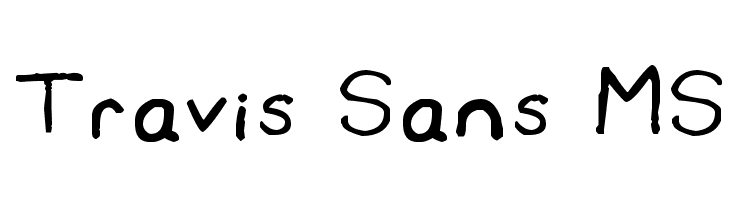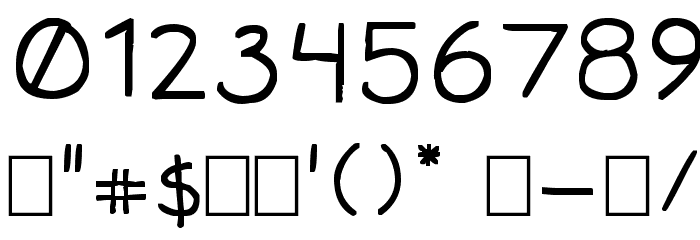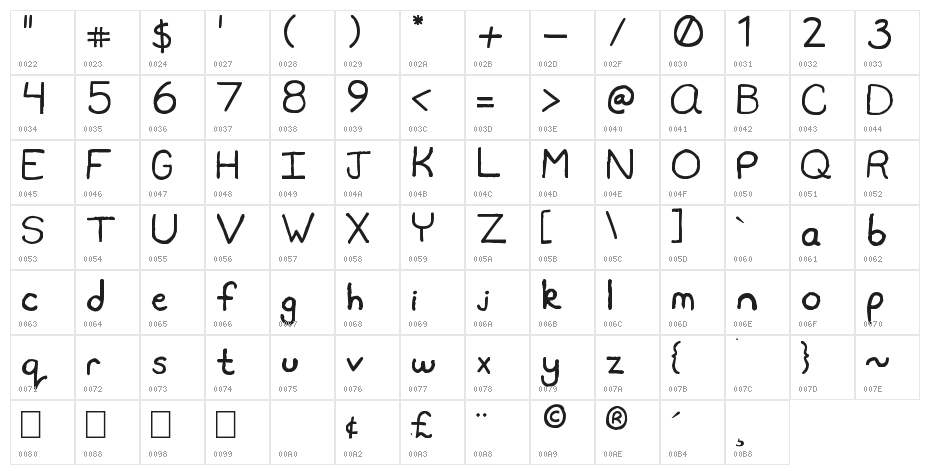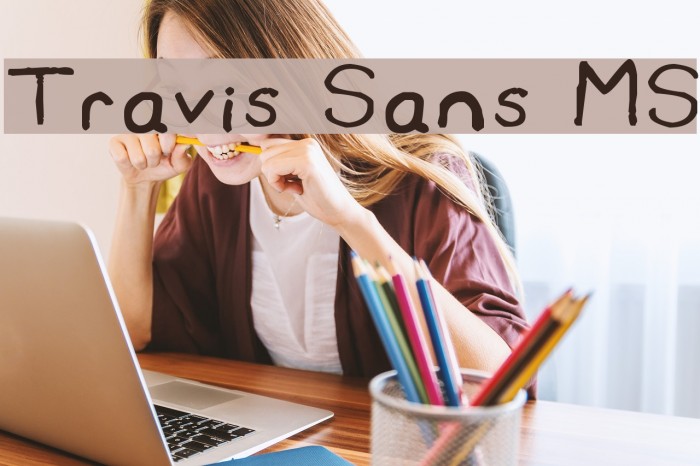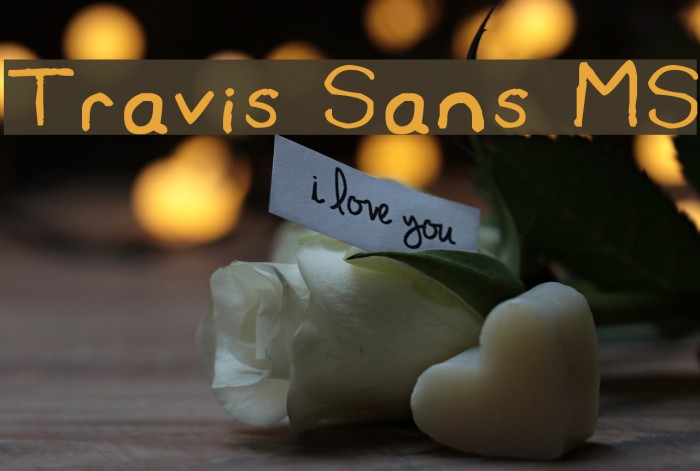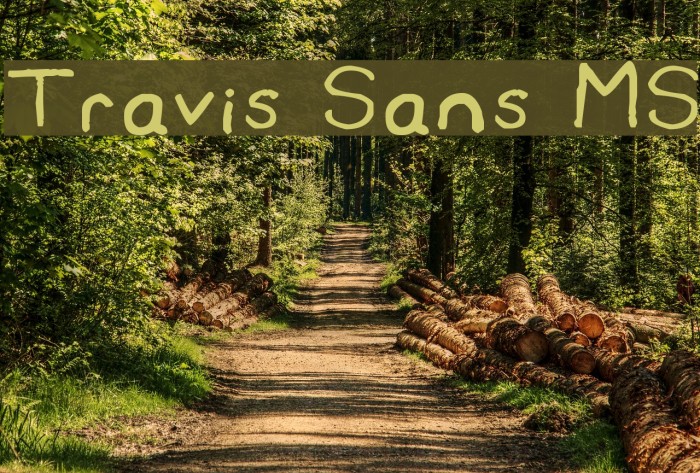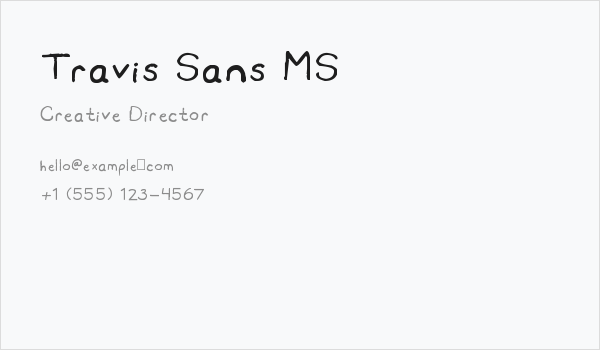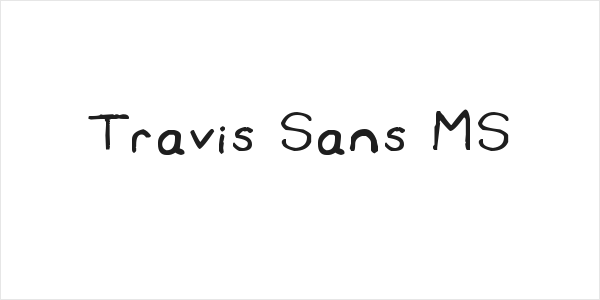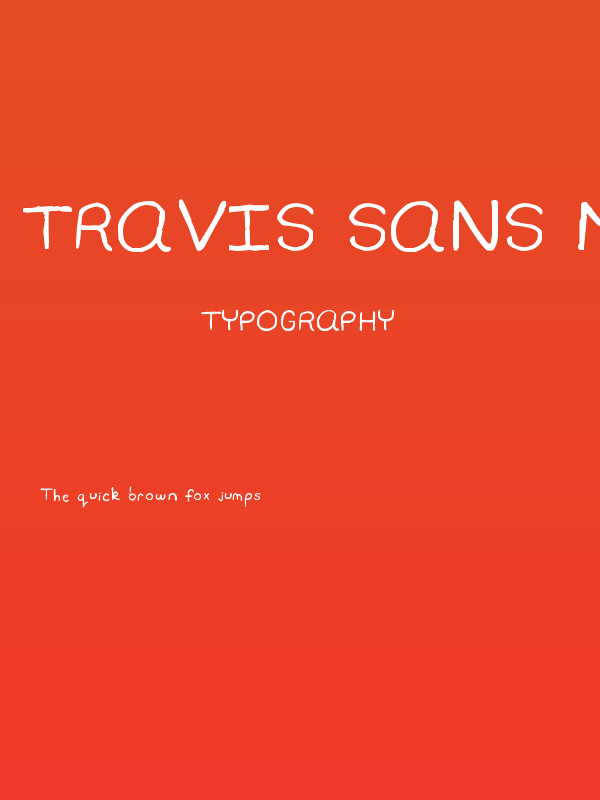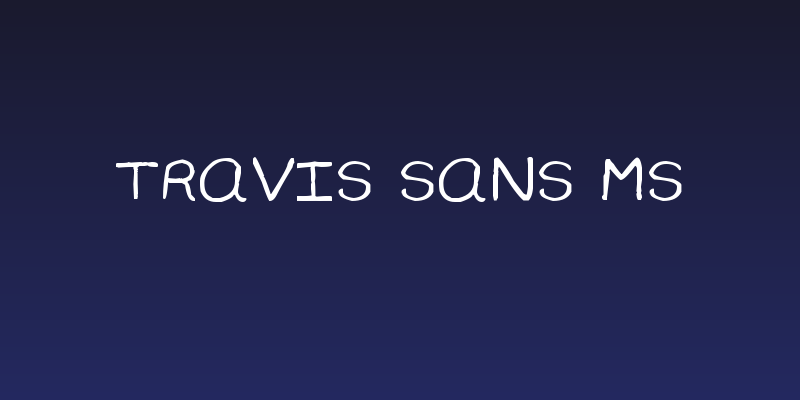
Travis Sans MS Font
Travis Sans MS Description
This font features a playful and informal handwritten style, characterized by its uneven strokes and casual appearance. The uppercase letters are bold and slightly irregular, giving a sense of spontaneity and creativity. The lowercase letters maintain a consistent flow, with rounded edges and a friendly demeanor. Numbers are clear and legible, matching the overall informal aesthetic. Special characters are included, maintaining the same playful style. This font is ideal for projects that require a personal touch or a relaxed, approachable vibe.
Overall StyleCasual, Playful
Use CaseHeadlines, Logos, Informal Text
Proposed ProjectsIdeal for greeting cards, children's books, personal blogs, and creative branding projects.